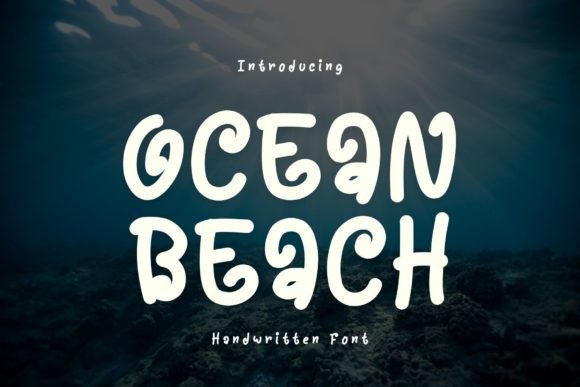
Welcome to the captivating realm of Ocean Beach Font, a delightful handwritten script that dances across the digital landscape with a touch of whimsy and authenticity. Crafted with meticulous care by Brown Cupple Fonts, this font exudes playfulness, inviting you to embark on a creative journey where imagination reigns supreme.
Ocean Beach Font isn't just a collection of characters; it's an artistic expression that breathes life into your designs. Its graceful curves and lively strokes evoke a sense of carefree spontaneity, making it the perfect choice for a wide range of projects, from personal to professional.
Step into the world of blog posts and social media posts, where Ocean Beach Font adds a personal touch that captivates your audience. Create logos and branding that radiate uniqueness, leaving a lasting impression on your customers. Design eye-catching ads that demand attention, ensuring your message cuts through the digital clutter.
Unlock the potential of invitations and greeting cards, infusing them with warmth and sincerity. Elevate your planners and photo albums, turning them into cherished keepsakes that tell a story. Decorate your world with Ocean Beach Font, adding a touch of charm to every aspect of your life.
With Ocean Beach Font, the possibilities are endless. Its versatility knows no bounds, adapting seamlessly to any design style or theme. Whether you're a seasoned designer or just starting your creative journey, this font will ignite your imagination and transform your ideas into captivating realities.
So dive into the depths of Ocean Beach Font, embrace its playful spirit, and let your creativity flourish. Experience the joy of self-expression and create designs that resonate with your audience, leaving a lasting impact that speaks volumes. From the Best Font for Letter M to your next design masterpiece, Ocean Beach Font is your trusted companion, guiding you towards creative excellence.